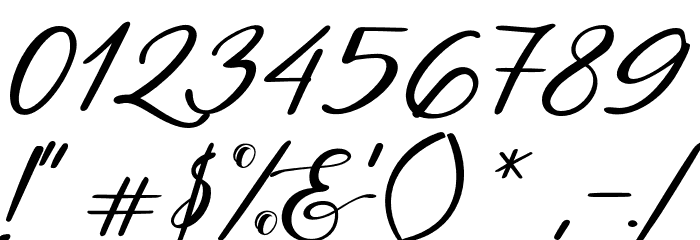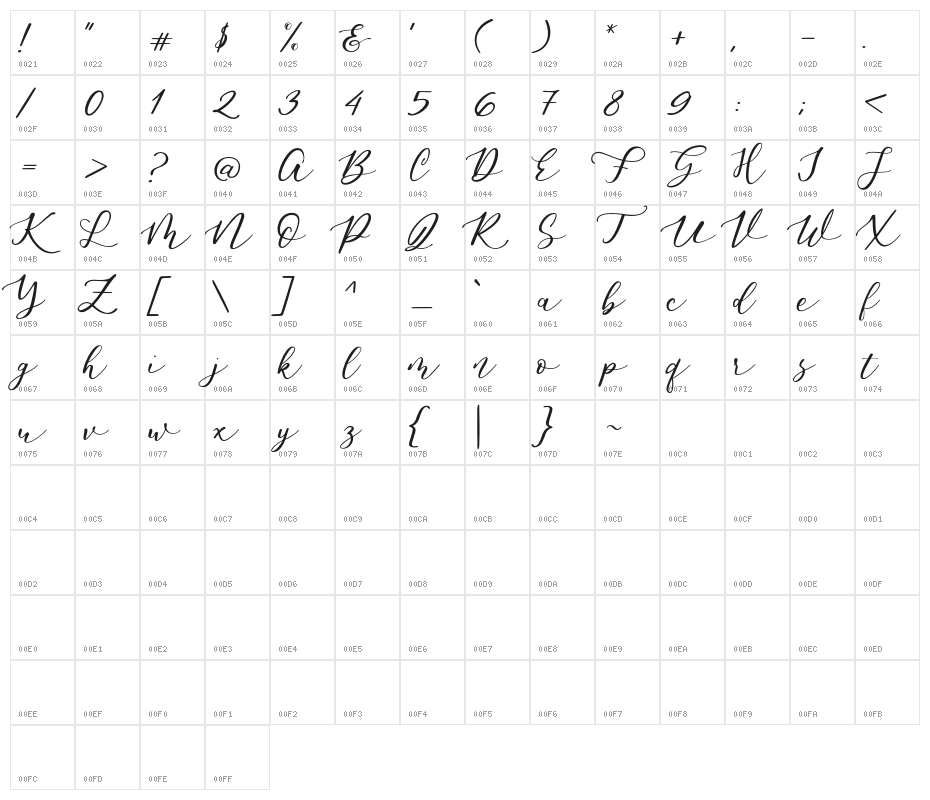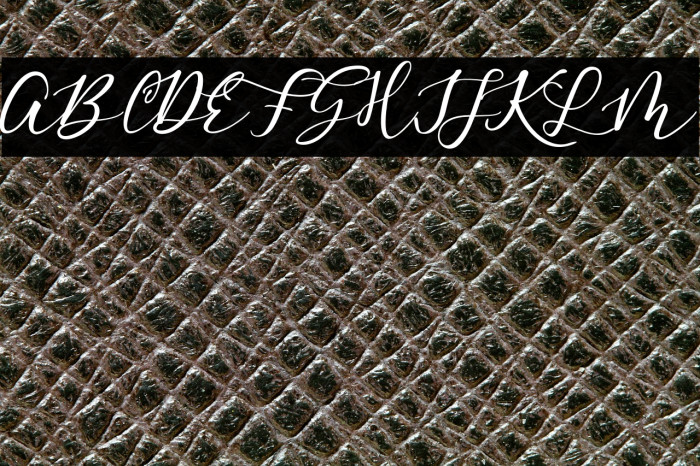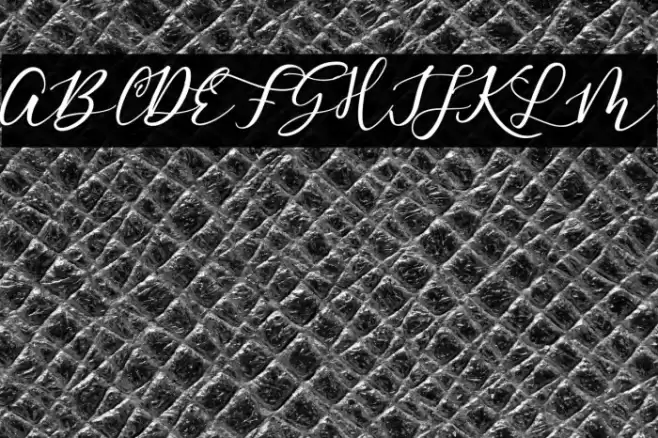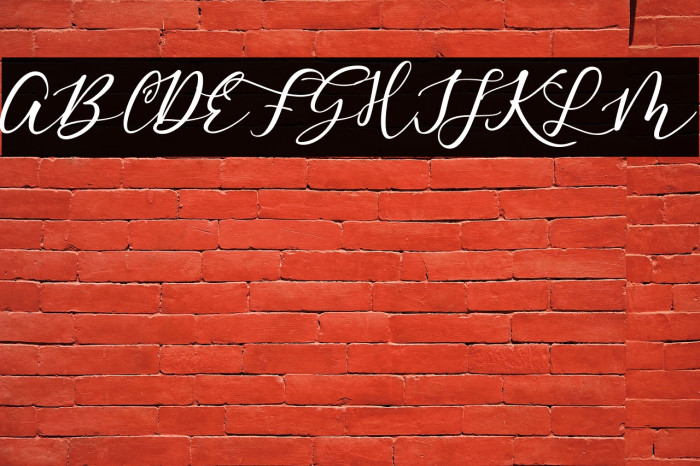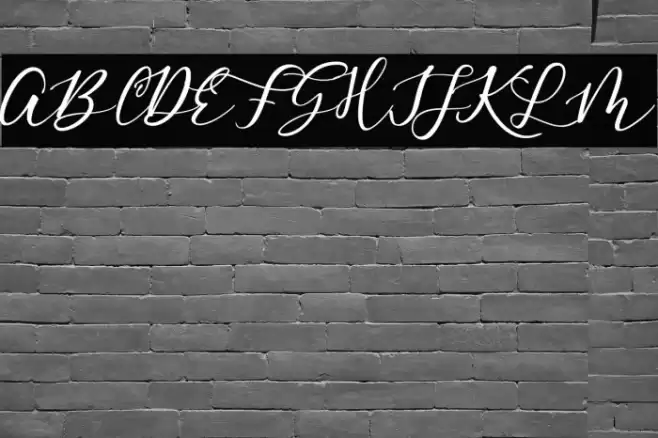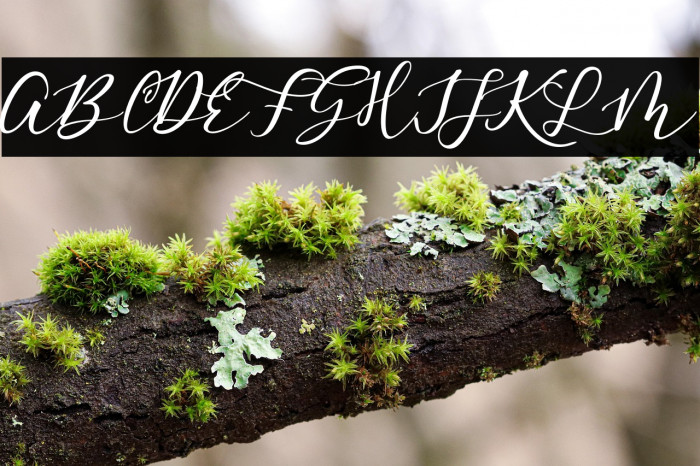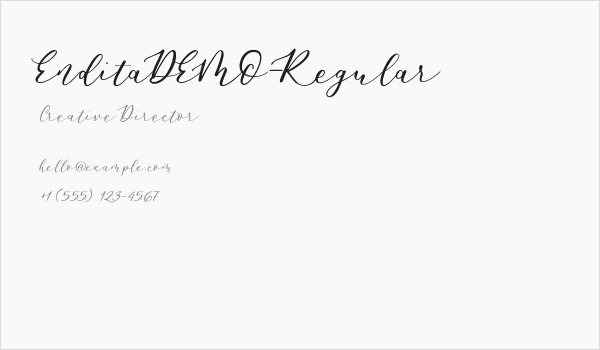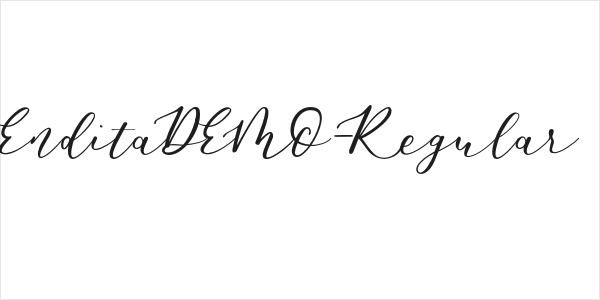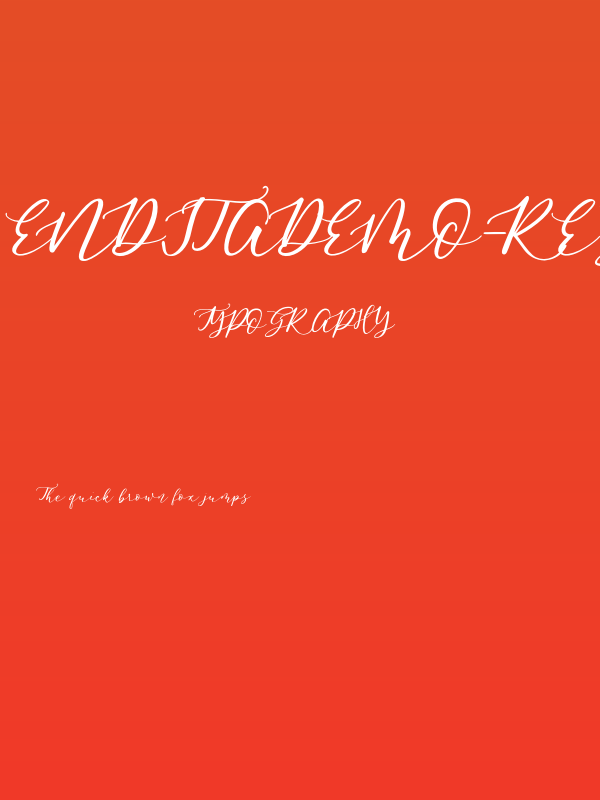
EnditaDEMO-Regular Font
EnditaDEMO-Regular Description
This font exudes elegance and fluidity, characterized by its cursive script style. The letters are interconnected with graceful, sweeping strokes that give it a handwritten feel. The uppercase letters are ornate, with flourishes that add a touch of sophistication, while the lowercase letters maintain a consistent flow, enhancing readability. The numerals are stylish yet clear, complementing the overall aesthetic. Special characters are designed with the same attention to detail, ensuring a cohesive look across all glyphs. This font is perfect for projects that require a personal, artistic touch.